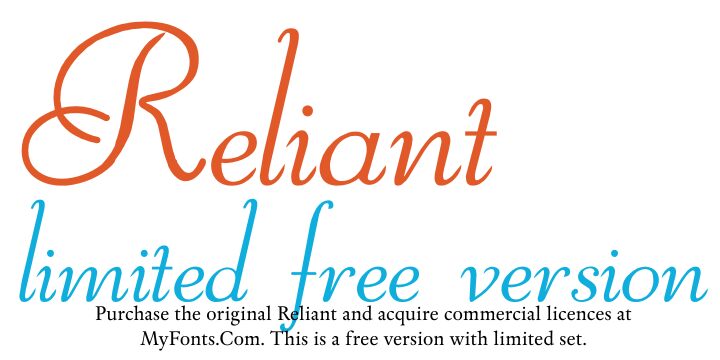
Reliant Shadow by Iza of Intellecta Design is a free calligraphic script with dramatic looping capitals and a fine outlined shadow. Its sweeping strokes change sharply in width, giving the lettering a formal, engraved quality rather than a soft handwritten look. Long curls and deep flourishes produce an unusually broad, ornate silhouette.
It can turn wedding invitations or beauty packaging into decorative penwork with a lightly dimensional effect. It also suits fashion editorials and music posters. Across these uses, the layered linework lets the words function as ornament as much as lettering.
Reliant Limited Free version was created by Intellecta Design. It is a non-commercial version containing a limited subset extracted from the original font.
Reliant is a free interpretation of BernhardSchoenschrift, originally designed by Lucien Bernhard, and Liberty, designed by W.T. Sniffin for ATF in 1927 based on Lucien Bernhard’s original designs.
This OpenType version includes complete Greek and Latin alphabets and complete Central European, Vietnamese, Baltic, and Turkish character sets, including all diacritical signs, punctuation marks, and additional characters belonging to these ranges.
The font also includes a Cyrillic alphabet, which was corrected with assistance from Dmitry Greshnev of Green Type for Cyrillic readers.
The font includes stylistic and contextual alternates, discretionary ligatures, swashes, tail ornaments, fractions, and number ligatures. These features provide letterform variations, and the number ligatures are attributed to Iza W.